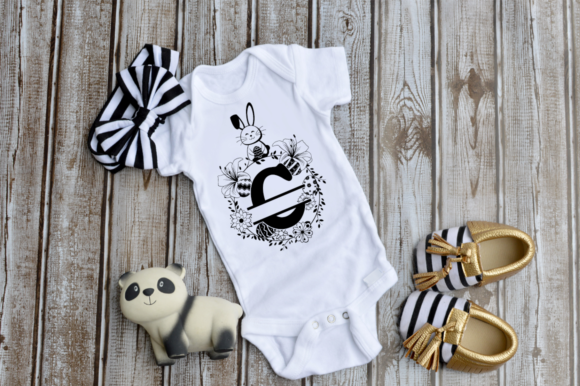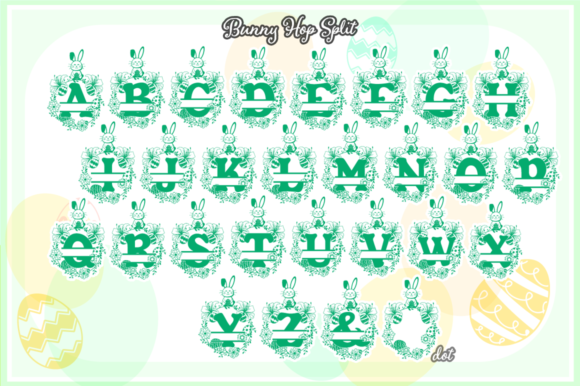
Bunny Hop Split Font: The Ultimate Crafting Companion
Are you a crafter looking for the perfect font to elevate your DIY projects? Do you use cutting machines like Cricut Design Space, Silhouette Studio, or ScanNCut? Look no further! Introducing the Bunny Hop Split Font, a handcrafted font designed specifically with crafters in mind. In this article, we’ll dive into the features and benefits of this unique font and how it can take your crafting to the next level.
What is the Bunny Hop Split Font?
The Bunny Hop Split Font is a carefully crafted font created from scratch, using as few points as possible to ensure seamless cutting and minimum difficulty. This font is optimized for use with major cutting machine brands, including Cricut Design Space, Silhouette Studio, and ScanNCut. The result is a font that cuts smoothly and efficiently, saving you time and effort.
Key Features of the Bunny Hop Split Font
- Handcrafted with precision: Each letter is carefully designed from scratch to ensure a smooth cutting experience.
- Minimal points: The font uses the fewest possible points, reducing cutting time and minimizing the risk of errors.
- Optimized for crafters: The Bunny Hop Split Font is specifically designed for use with cutting machines, making it perfect for crafters.
- Compatible with major brands: The font works seamlessly with Cricut Design Space, Silhouette Studio, ScanNCut, and other major cutting machine brands.
Benefits of Using the Bunny Hop Split Font
So, why choose the Bunny Hop Split Font for your crafting projects? Here are just a few benefits:
- Saves time: With fewer points to cut through, you’ll spend less time waiting for your machine to finish cutting.
- Reduces errors: The minimal points used in the font reduce the risk of errors, ensuring a smooth cutting experience.
- Easier to use: The Bunny Hop Split Font is designed to be easy to use, even for those new to cutting machines.
- Perfect for intricate designs: The font’s precision design makes it ideal for intricate designs and detailed projects.
Who Can Benefit from the Bunny Hop Split Font?
The Bunny Hop Split Font is perfect for:
- Crafters: Whether you’re a hobbyist or professional, this font is designed to make your crafting experience easier and more enjoyable.
- DIY enthusiasts: If you love making things yourself, the Bunny Hop Split Font is a great addition to your design toolkit.
- Sign makers: The font’s precision design makes it ideal for creating signs, banners, and other visual displays.
- Paper crafters: The Bunny Hop Split Font is perfect for card making, scrapbooking, and other paper crafting projects.
How to Get the Most Out of the Bunny Hop Split Font
To get the most out of the Bunny Hop Split Font, here are a few tips:
- Experiment with different sizes: The font looks great in a variety of sizes, from small to large.
- Pair with other fonts: Try pairing the Bunny Hop Split Font with other fonts to create unique and interesting combinations.
- Use in different materials: The font works well with a variety of materials, including paper, vinyl, and iron-on.
The Bunny Hop Split Font is a game-changer for crafters and designers looking for a smooth and efficient cutting experience. With its handcrafted design, minimal points, and compatibility with major cutting machine brands, this font is perfect for a wide range of projects. Whether you’re a seasoned pro or just starting out, the Bunny Hop Split Font is a great addition to your design toolkit.